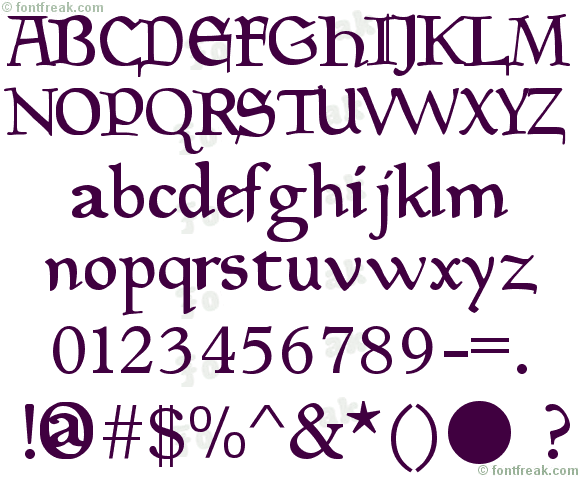
Planewalker
About Planewalker
Planewalker, designed by Neale Davidson in 2011, is a captivating display font that combines whimsical elegance with a touch of fantasy. This decorative typeface features unique letterforms characterized by intricate curves and flourishes, making it an eye-catching choice for various creative projects. The stroke weight varies throughout the characters, providing a dynamic contrast that enhances its visual appeal. The spacing is well-balanced, ensuring readability while still maintaining the artistic flair that defines this font.
The Planewalker font is particularly well-suited for a range of specific use cases. It shines in wedding invitations, where its enchanting style can evoke romance and charm. Additionally, it is an excellent choice for fantasy book covers, helping to transport readers into imaginative realms. Movie posters, especially for genres like adventure or fantasy, will benefit from the font's distinctive flair, capturing the attention of potential viewers. Restaurant menus aiming for a thematic or elegant presentation can also utilize Planewalker to create an inviting atmosphere. Lastly, graphic designers creating promotional materials for events or festivals will find this font adds a unique touch that stands out.
What sets Planewalker apart is its ability to blend artistry with functionality. The font not only captures attention but also conveys a sense of storytelling, making it a valuable addition to any designer's toolkit. For those interested in exploring its potential, the Planewalker font free download is readily available, inviting you to bring a touch of magic to your designs.